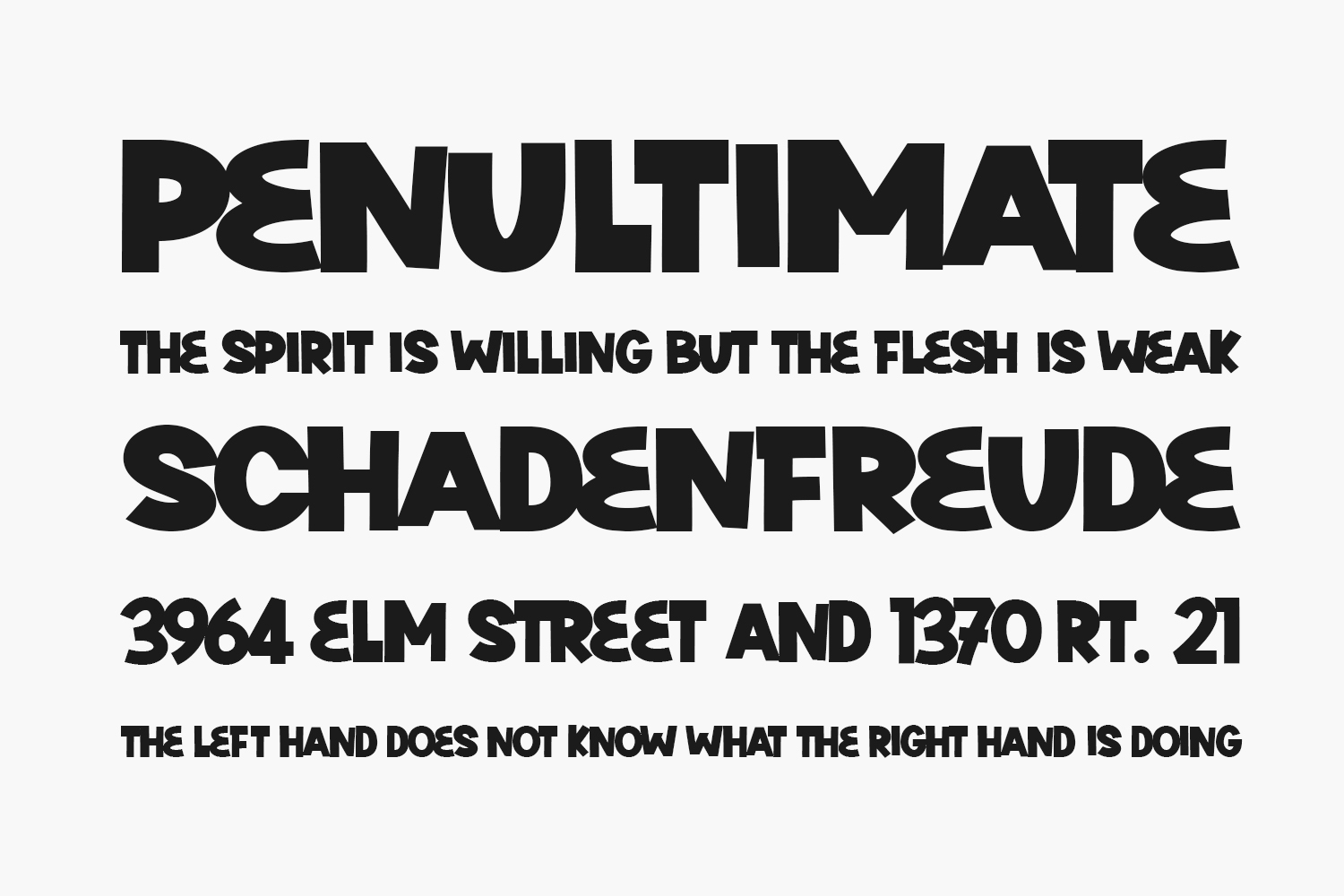
Introducing Richu Mast Free Font, a vibrant display font that captures the exuberant essence of a colorful children’s universe. With its distinct layers and lively appeal, this font is a perfect choice for a multitude of applications, including quotes, T-shirt designs, flyers, YouTube channels, labels, logos, and any other creative project that calls for a playful touch. Let Richu Mast bring an abundance of joy and creativity to your designs. Richu Mast Free Font is free for personal or commercial use.